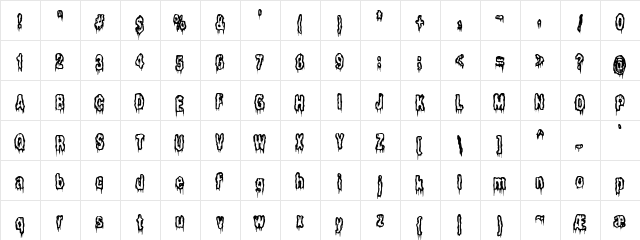
It Lives In The Swamp (BRK) Regular
Design Context for It Lives In The Swamp (BRK) Typeface
It Lives In The Swamp (BRK) is a composed and adaptable typeface that performs quietly and consistently across a wide range of design contexts.